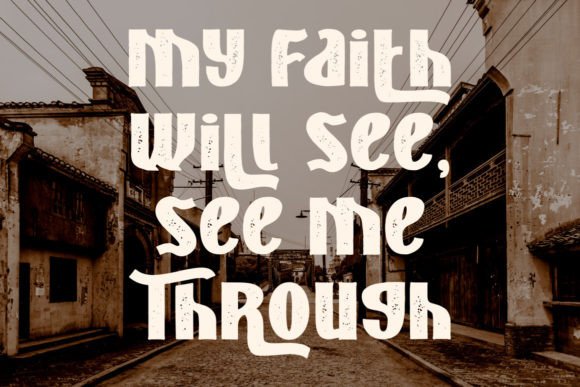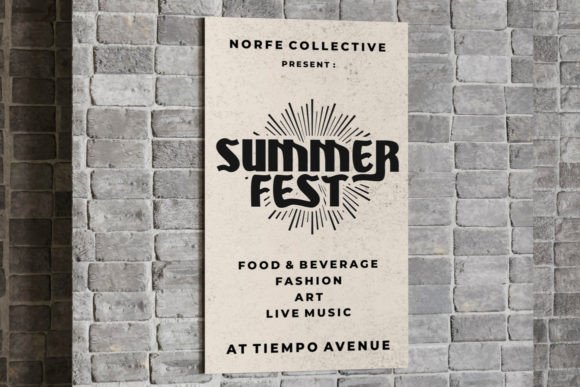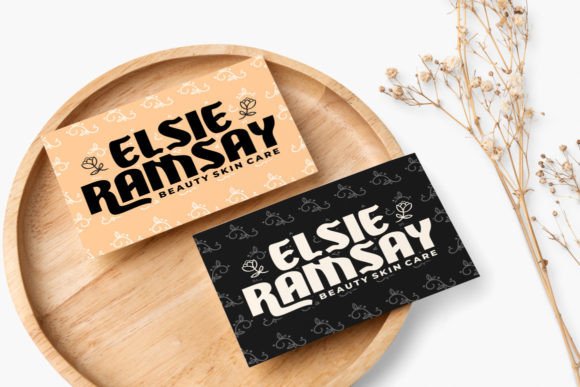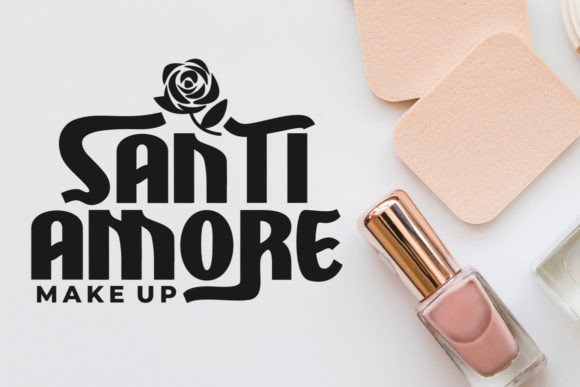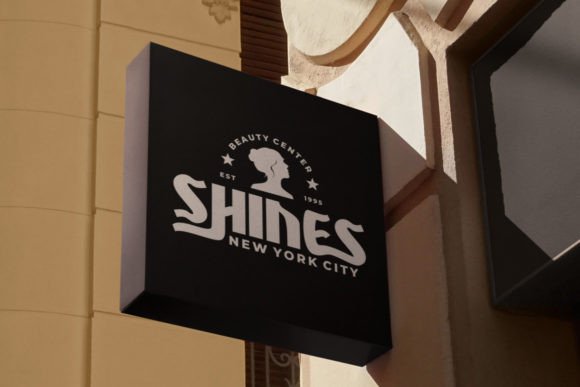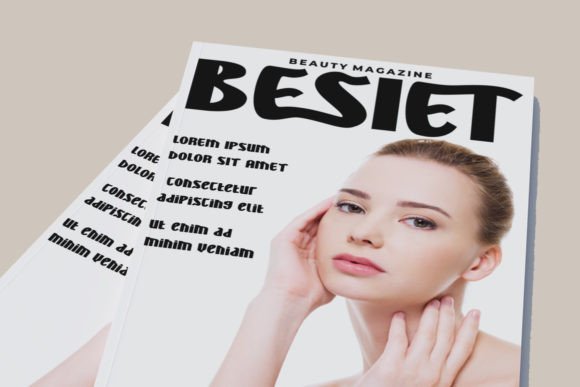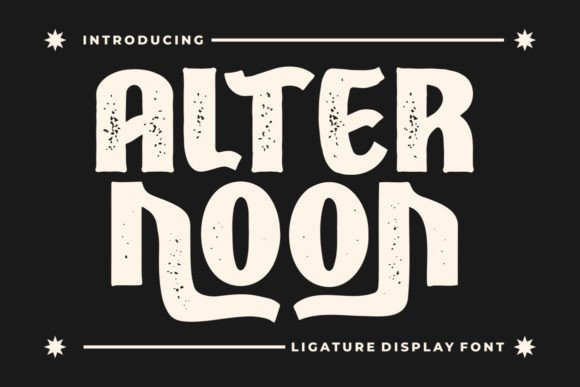
Introducing Alternoon Font: The Cool and Trendy Display Font for Creative Minds
Are you a designer, crafty person, or simply someone who loves to express themselves through creative projects? Look no further! Alternoon Font is here to take your designs to the next level. This stunning display font is not only cool and trendy but also masterfully designed to become a true favorite among font enthusiasts.
The Features of Alternoon Font
So, what makes Alternoon Font stand out from the rest? Here are some of its key features:
- PUA Encoded: Alternoon Font is PUA (Private Use Area) encoded, which means you can access all the glyphs and ligatures with ease. This feature makes it incredibly easy to use and customize the font to suit your creative needs.
- Wide Range of Glyphs and Ligatures: With Alternoon Font, you’ll have access to a wide range of glyphs and ligatures, allowing you to add a personal touch to your designs. Whether you’re creating a logo, a poster, or a social media graphic, this font has got you covered.
- High-Quality Design: Alternoon Font is designed with high-quality and precision in mind. The font’s sleek and modern design makes it perfect for a variety of creative projects, from branding and advertising to packaging and more.
Why Choose Alternoon Font?
With so many fonts available, why choose Alternoon Font? Here are just a few reasons why this font is a cut above the rest:
- Unique and Eye-Catching: Alternoon Font is truly one-of-a-kind. Its unique design and stylish aesthetic make it perfect for designers who want to create eye-catching and memorable designs.
- Versatile: Whether you’re working on a personal project or a client’s brief, Alternoon Font is versatile enough to adapt to any design style or theme.
How to Use Alternoon Font
So, how can you start using Alternoon Font in your creative projects? Here are a few tips:
- Experiment with Different Styles: Don’t be afraid to experiment with different styles and combinations of glyphs and ligatures. Alternoon Font is designed to be flexible and adaptable, so feel free to get creative!
- Pair it with Other Fonts: For added visual interest, try pairing Alternoon Font with other fonts. The possibilities are endless!
- What is Alternoon Font? Alternoon Font is a cool and trendy display font designed for creative projects.